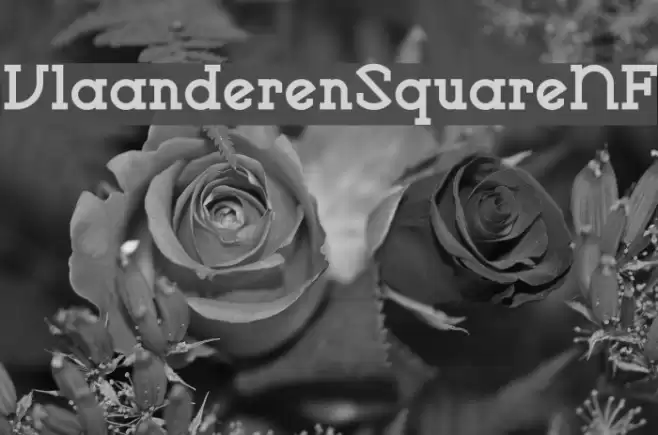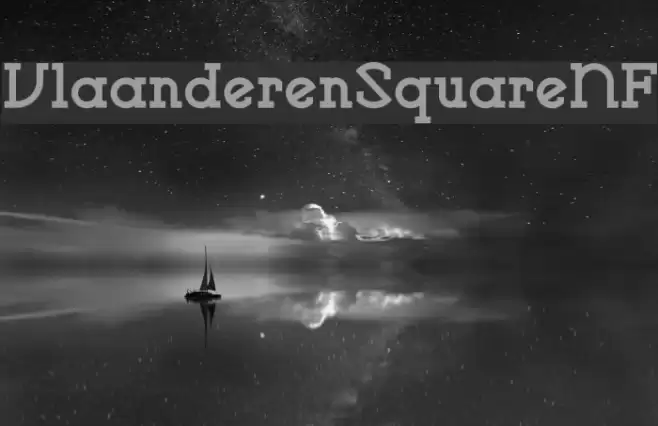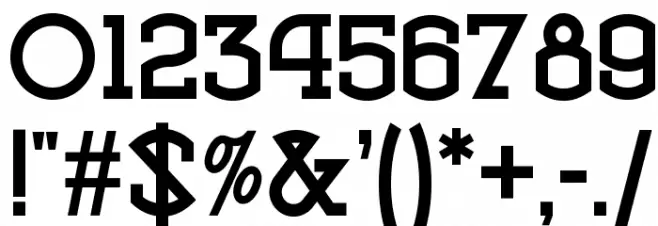
VlaanderenSquareNF Font
VlaanderenSquareNF Description
This font features a bold and geometric design with a distinct slab serif style. The characters are constructed with strong, straight lines and sharp angles, giving it a modern yet retro feel. The uppercase letters are particularly striking, with unique elements such as the crossbars on the 'A' and 'H' and the curved tail on the 'Q'. The lowercase letters maintain the boldness of the uppercase, with rounded forms that contrast with the angular serifs. Numbers are equally bold and consistent with the overall design, making them highly legible. Special characters are well-integrated, maintaining the font's cohesive style.
A bold, geometric slab serif font with a modern retro aesthetic from Uncategorized fonts.
- Proposed Projects: Ideal for branding, poster design, headlines, and any project requiring a strong, vintage-inspired look.
- Overall Style: Modern, Vintage